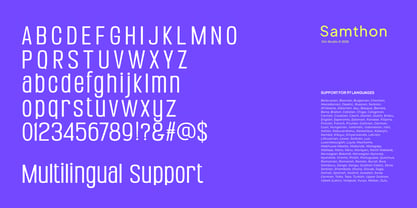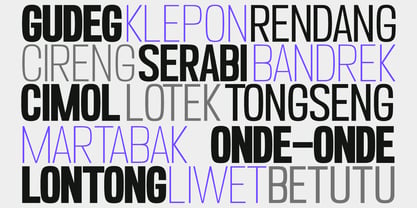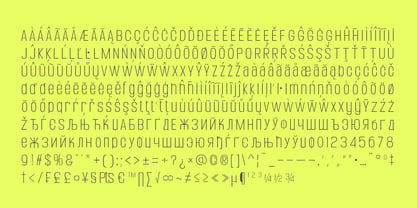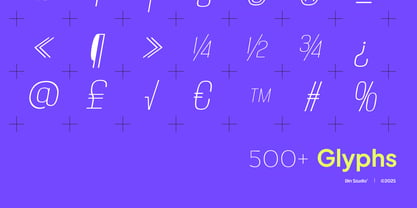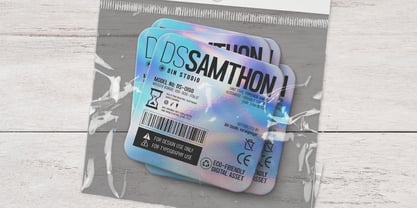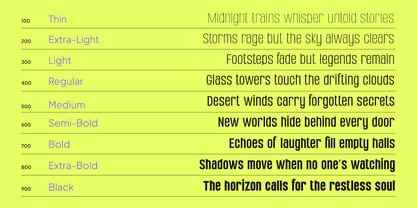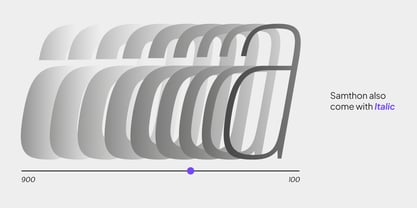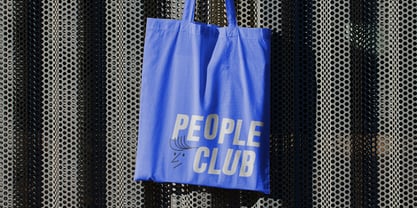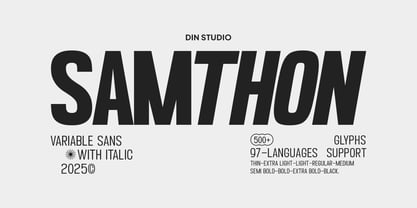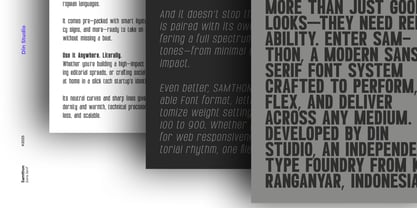
Samthon
The Samthon Font Family was designed by Donis Miftahudin and published by Din Studio. Samthon contains 18 styles and family package options. More about this family
Samthon is a modern neo-grotesque sans serif font family with tall characters, clean letterforms, horizontal terminals, and tight apertures that give it a confident, structured feel. With 9 precise weights, italics, and full variable font support for weight and slant, Samthon is built to greatly impact your design. In addition, enjoy the features here.
Samthon’s different weight fonts :
• Thin (Regular/Italic)
• Extra Light (Regular/Italic)
• Light (Regular/Italic)
• Regular (Regular/Italic)
• Medium (Regular/Italic)
• Semi Bold (Regular/Italic)
• Bold (Regular/Italic)
• Extra Bold (Regular/Italic)
• Black (Regular/Italic)
Features:
• Multilingual Supports
• Numerals and Punctuations
Samthon fits in bold branding, packaging, posters, headlines, editorial designs, and many more designs. Find out more ways to use this font by taking a look at the font preview.